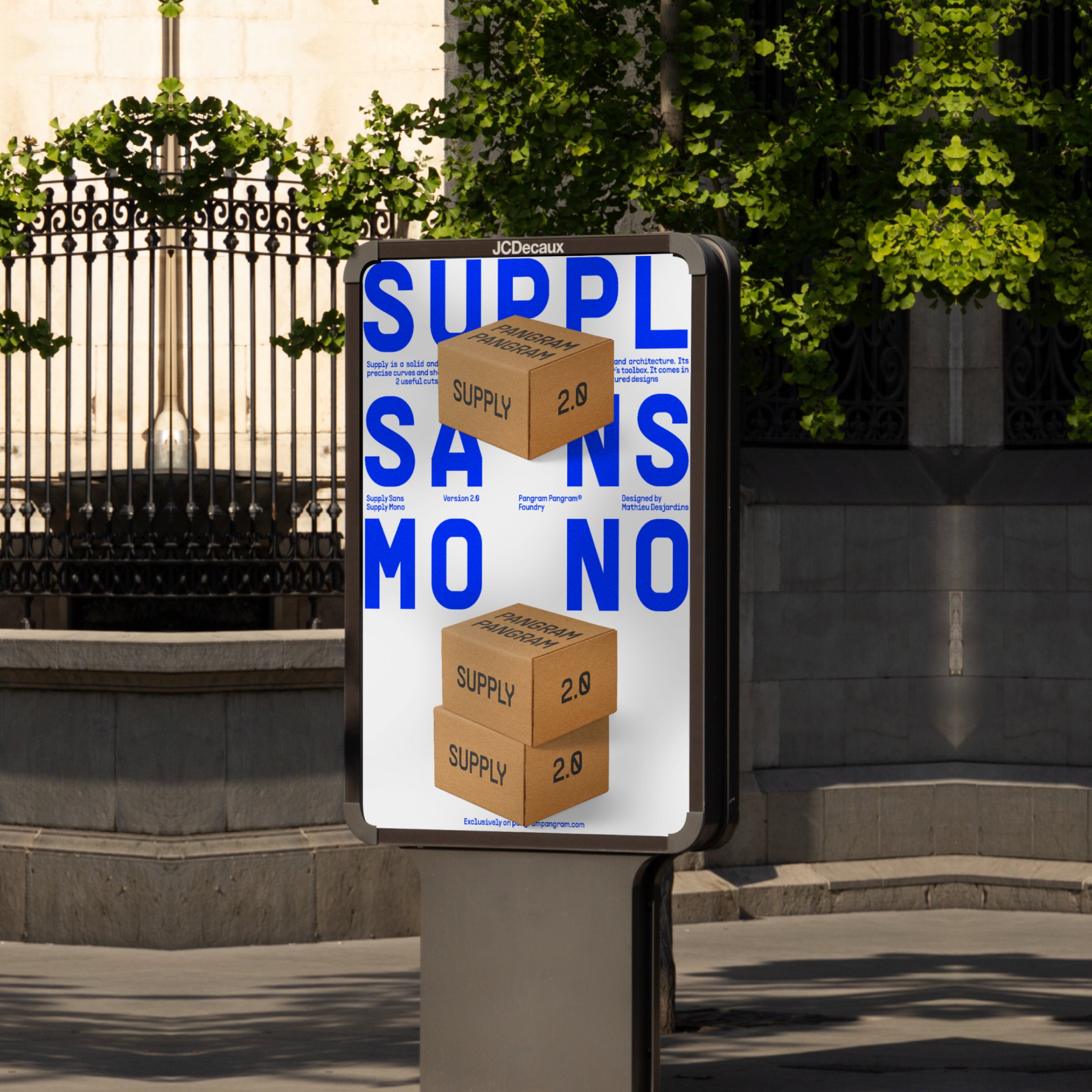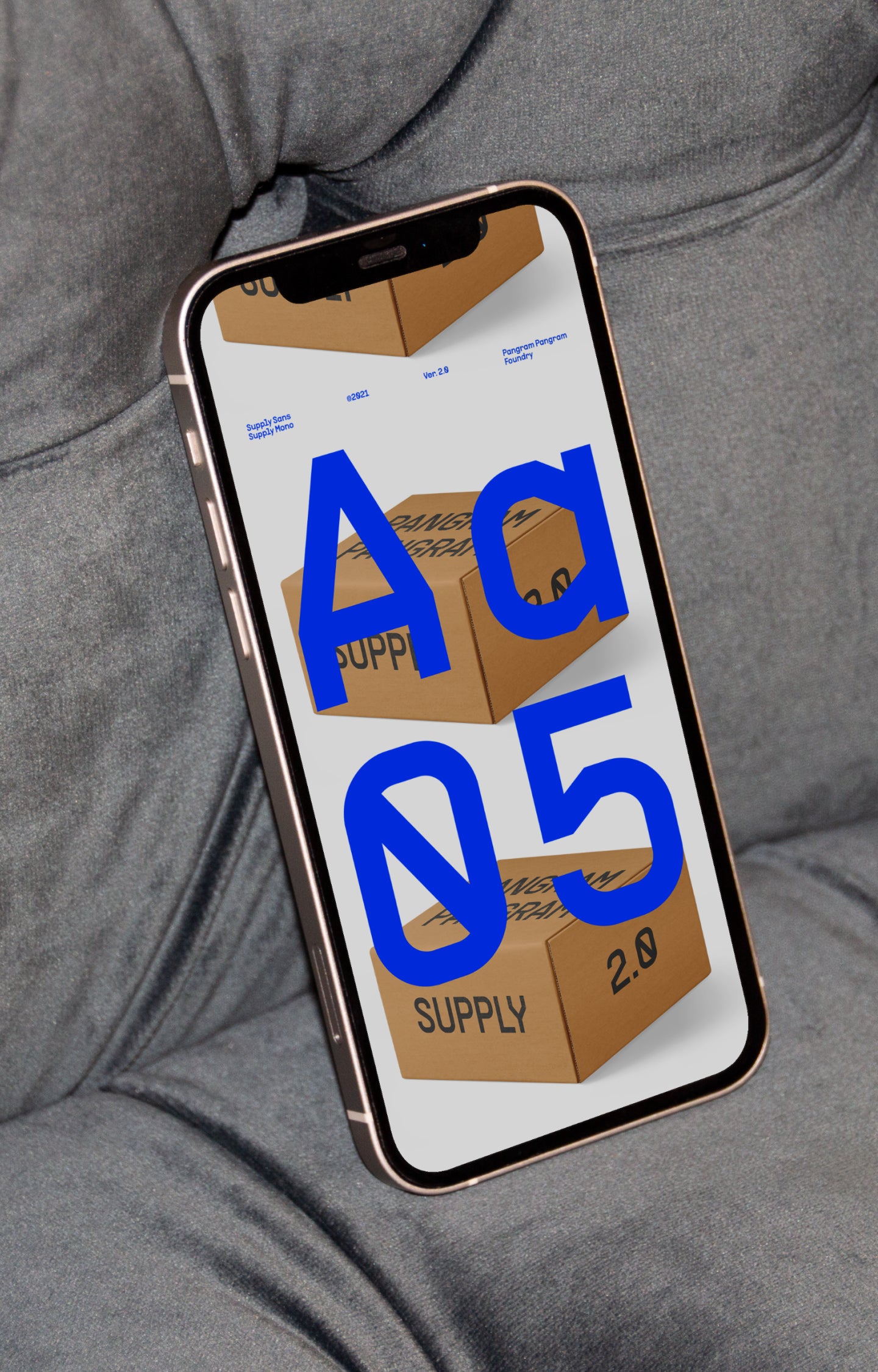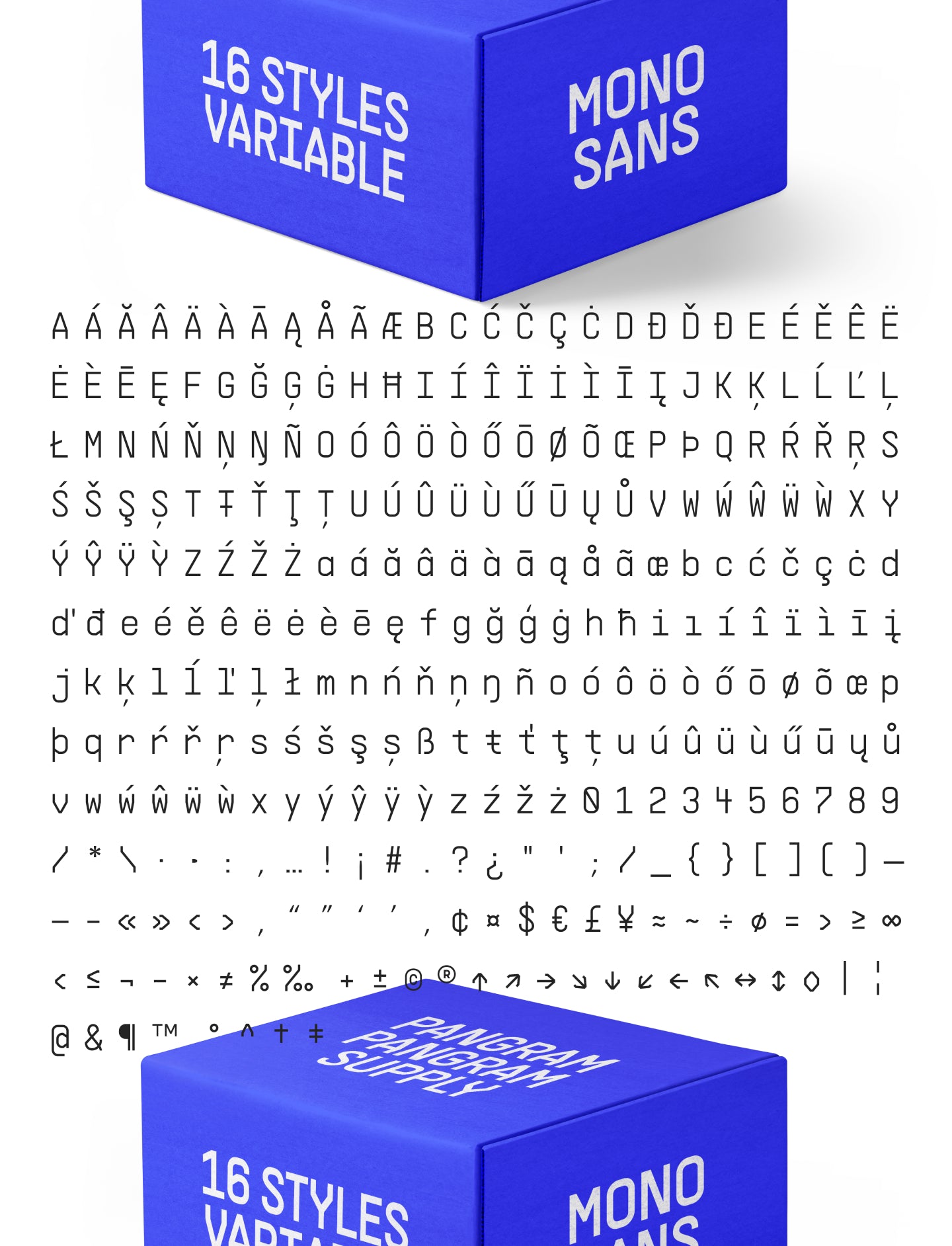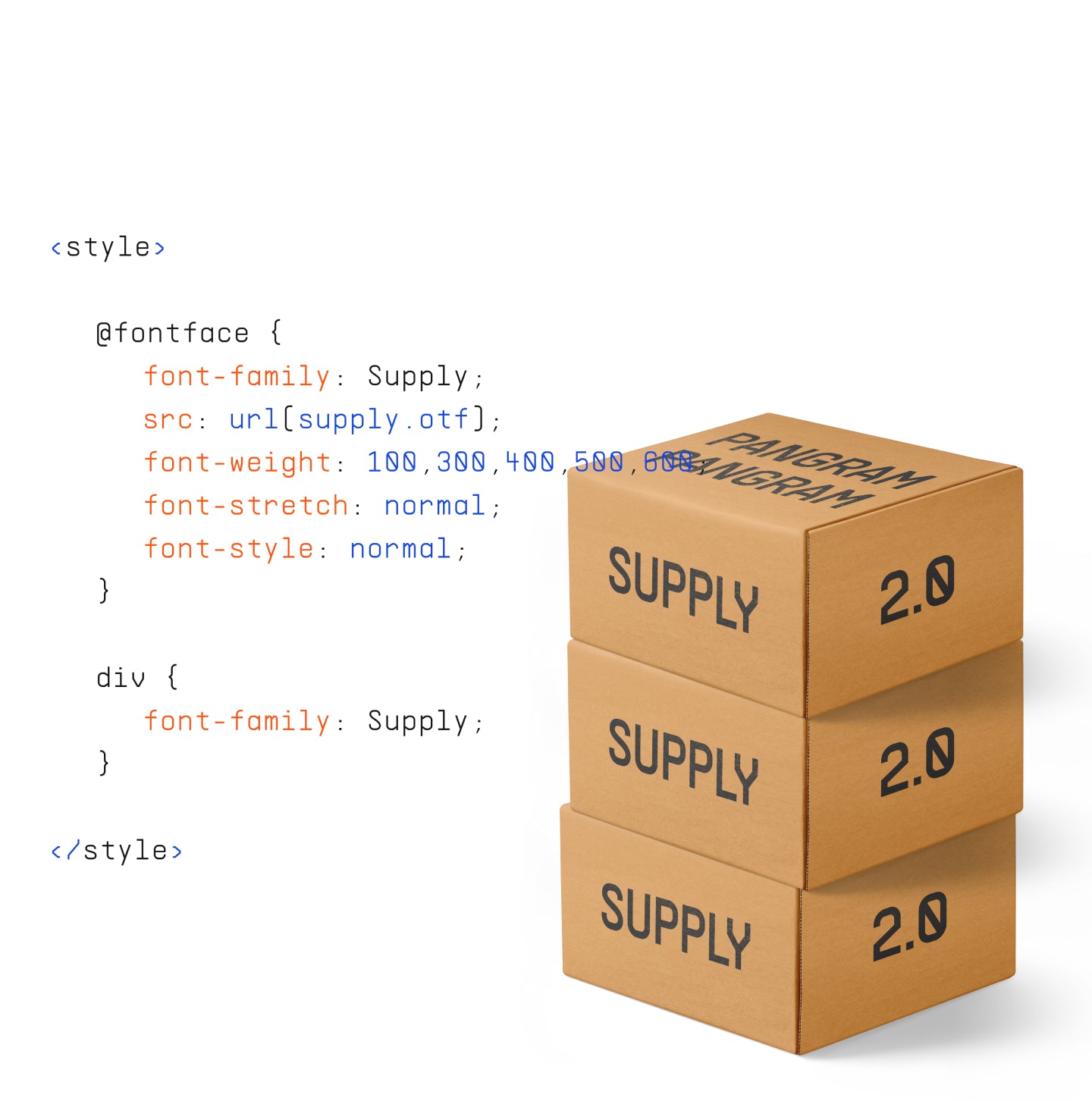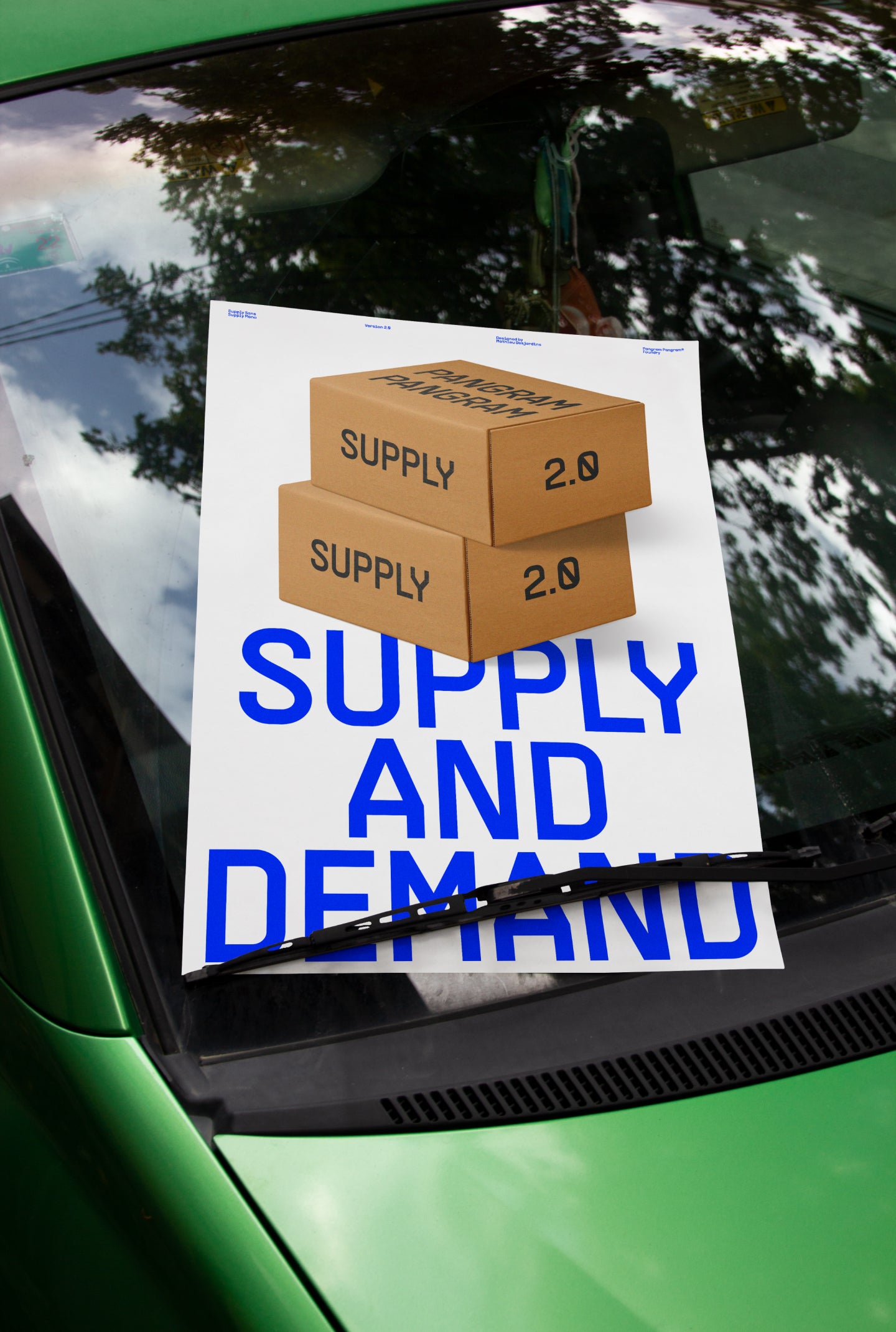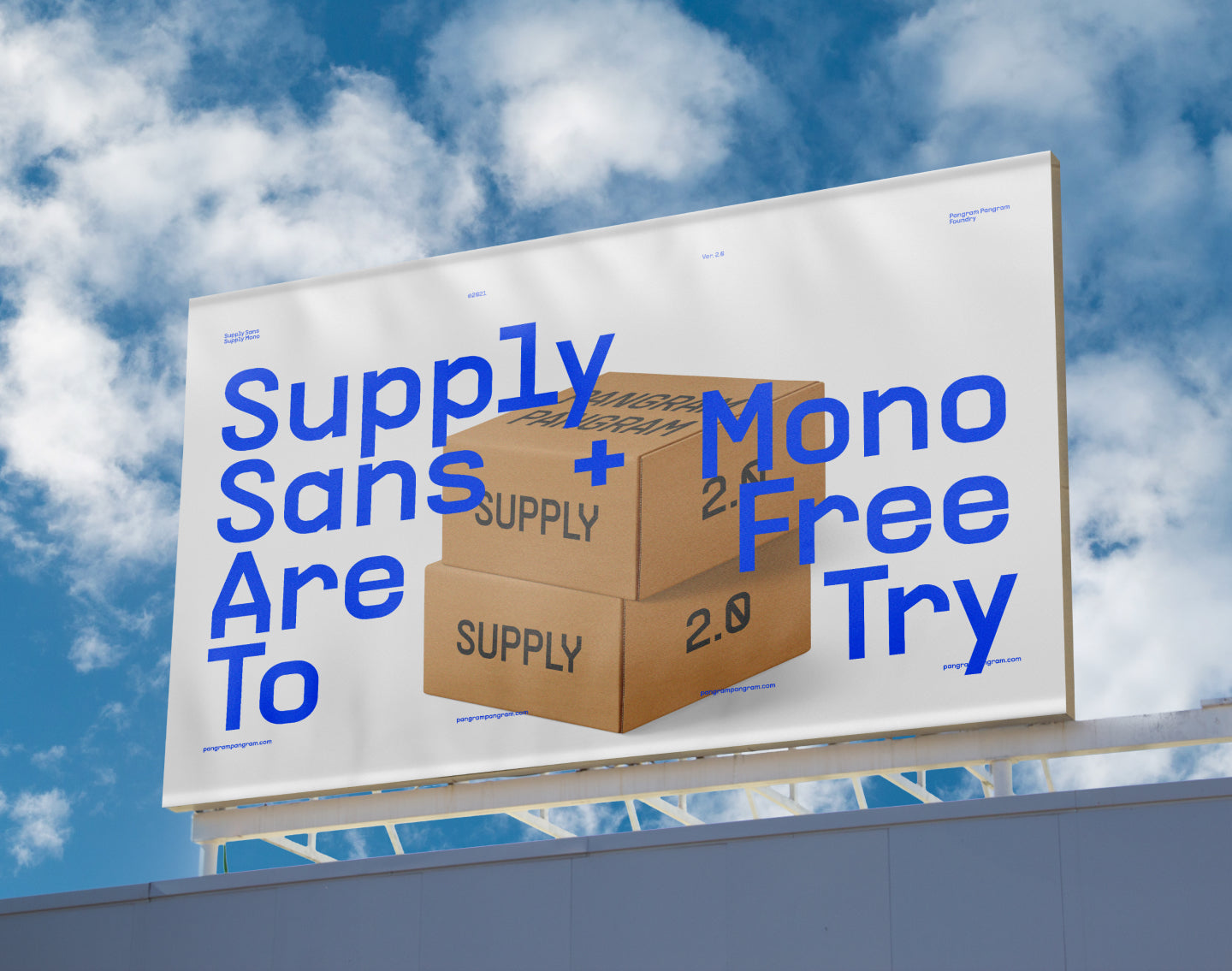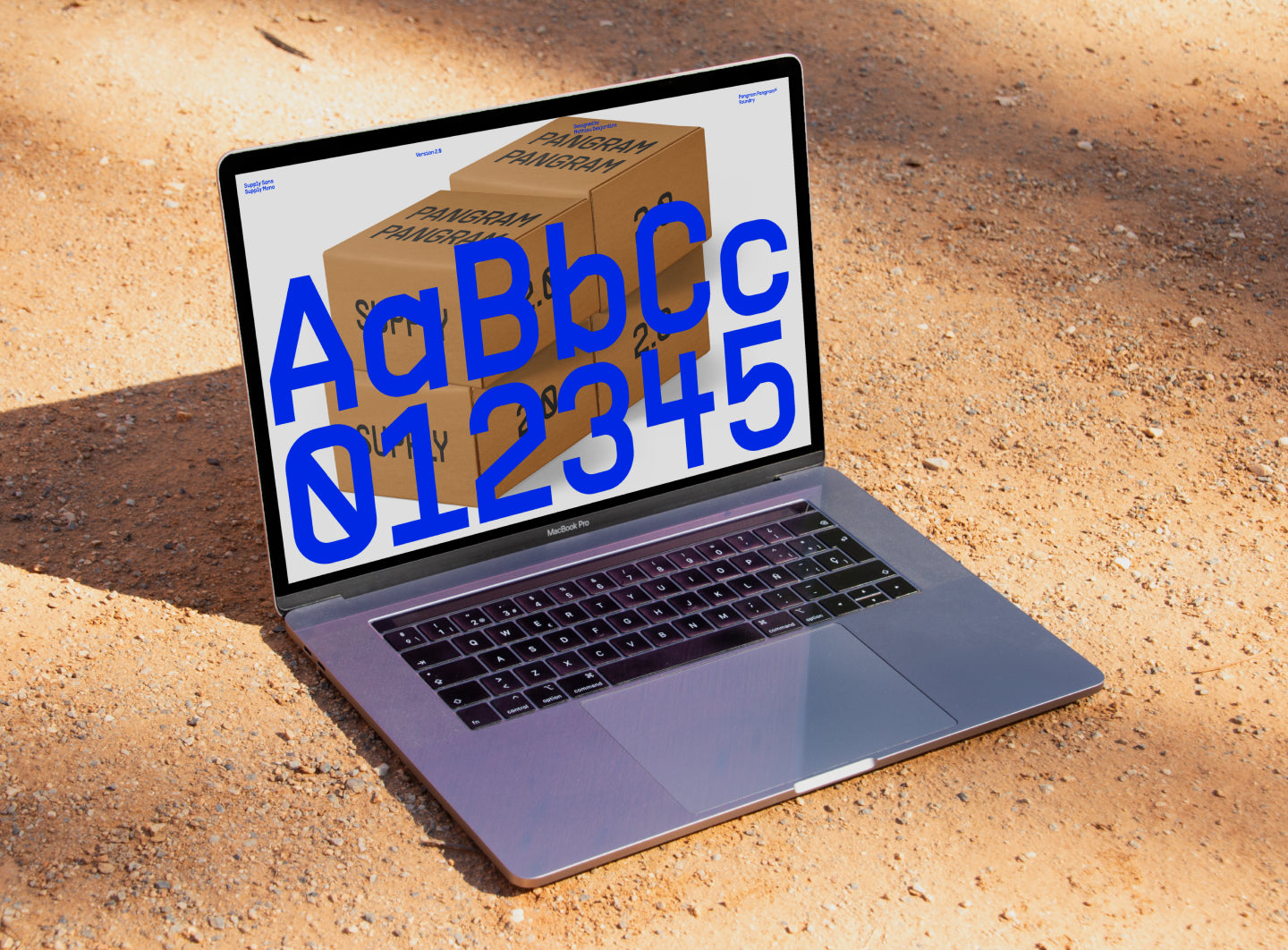
Supply is variable
Industrial Strength Typography
Supply is a solid and versatile typeface inspired by industrial design and architecture. Its precise curves and sharp angles makes this new font one for every designer’s toolbox. It comes in 2 useful cuts: a Sans Serif and a classic Monospace for more structured designs
• Geometric
• Monospace
• Sans Serif
• 2 Subfamilies
• 8 Styles each
2 Cuts x 8 Styles with 360 Glyphs each